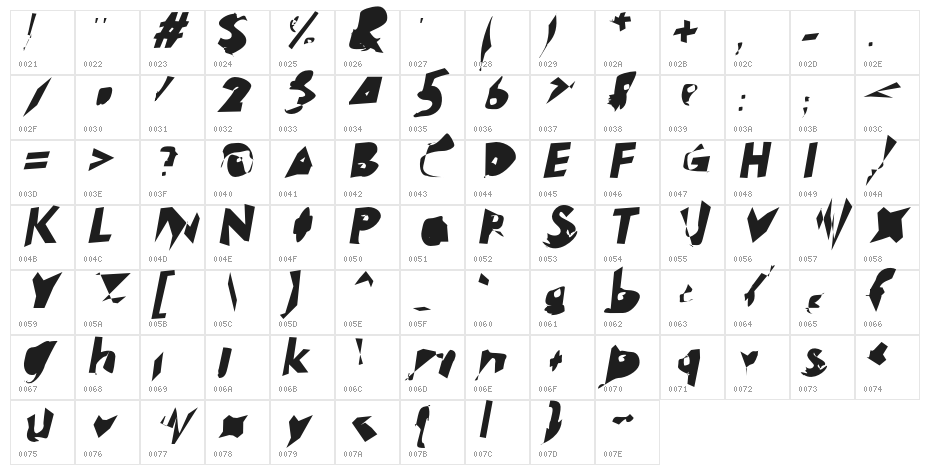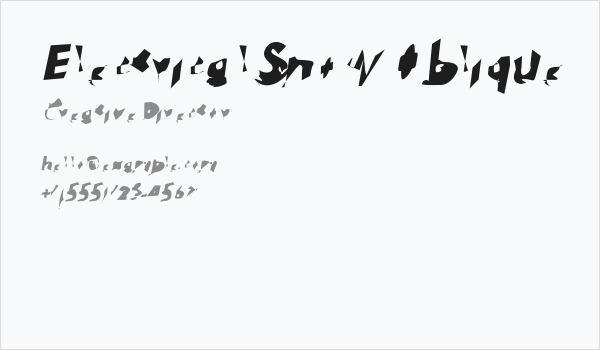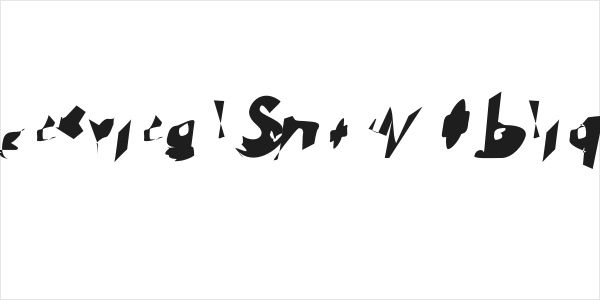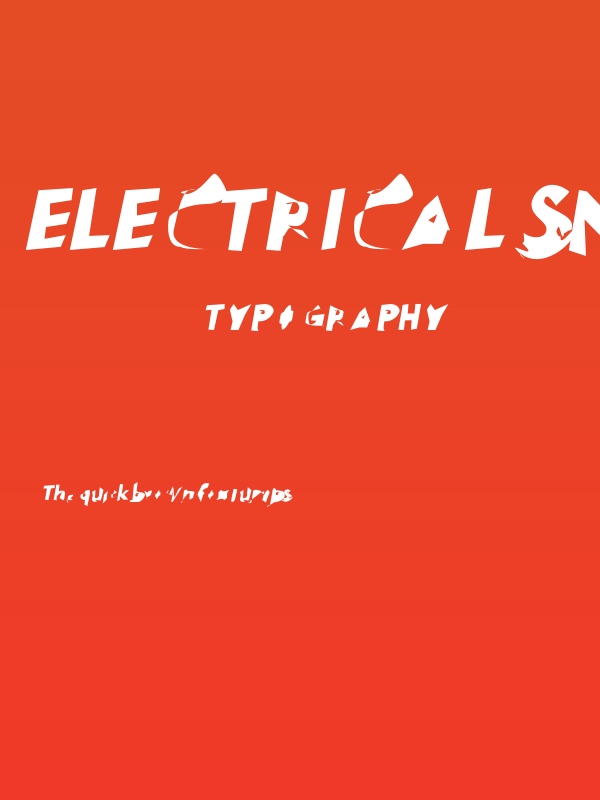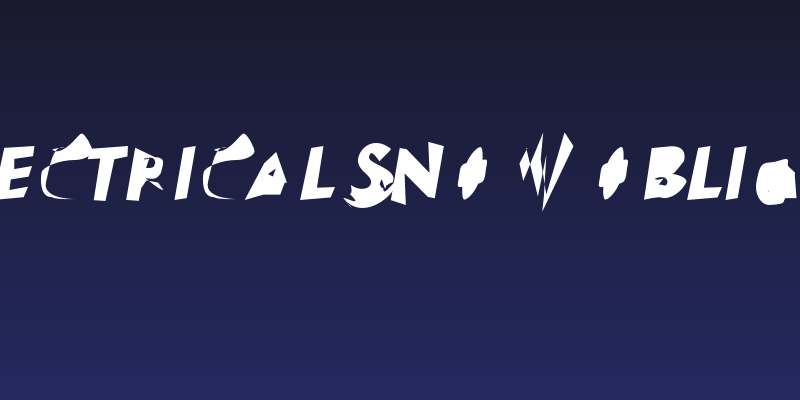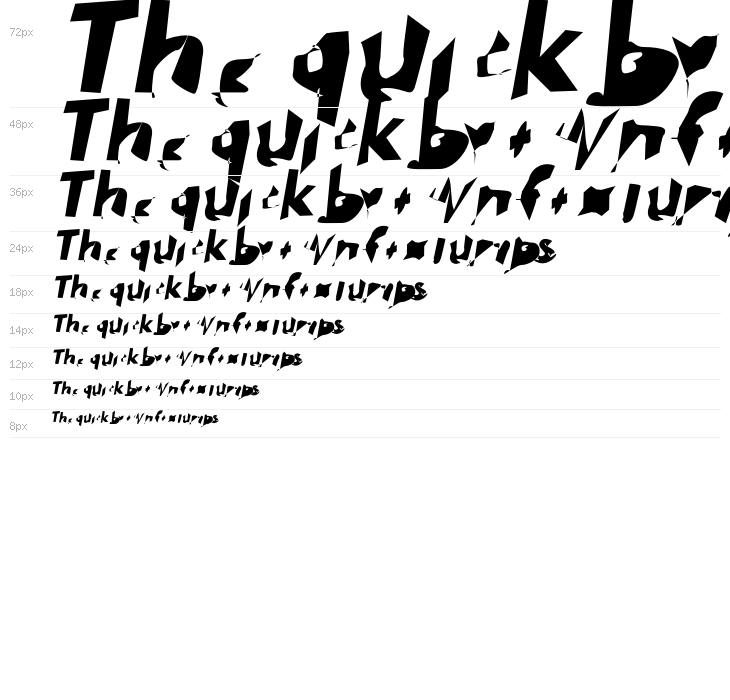
Electrical Snow Oblique Font
Electrical Snow Oblique Description
This font features a dynamic and edgy design with a distinct oblique style. The characters are bold and heavily stylized, incorporating sharp angles and irregular shapes that create a sense of movement and energy. The uppercase and lowercase letters maintain a consistent theme, with each character appearing as if it has been sliced or shattered, adding to the chaotic yet artistic aesthetic. Numbers and special characters follow the same design principles, ensuring a cohesive look across all glyphs. The font's unique appearance makes it stand out, ideal for projects that require a strong visual impact.
| Overall Style | Modern, Edgy |
| Proposed Projects | Ideal for album covers, posters, video game graphics, and any project needing a bold, artistic touch. |